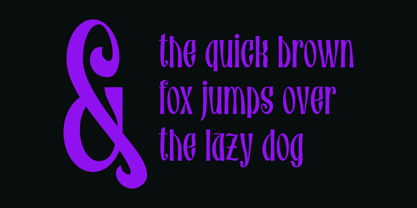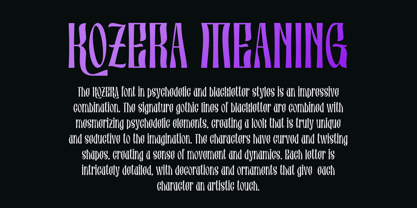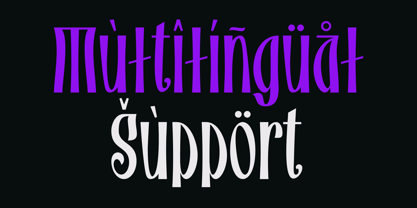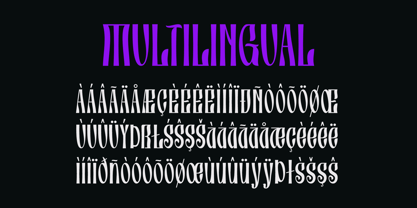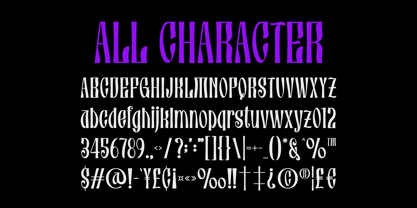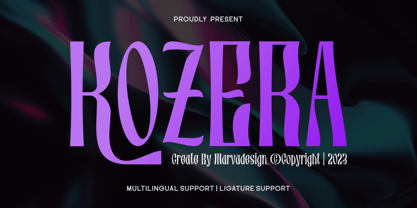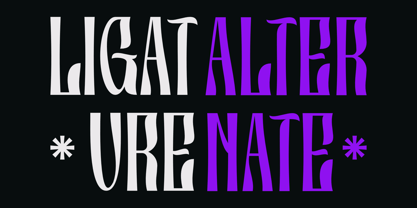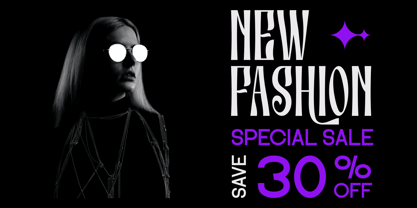
Kozera
by Marvadesign
The Kozera Font Family was designed by Febrie Setiawan and published by Marvadesign. Kozera contains 1 styles. More about this family
Introducing Kozera font is a distinctive typeface that masterfully blends elements of psychedelic and blackletter styles, resulting in a visually captivating and unique aesthetic. Its letterforms feature elongated, twisting shapes and intricate curves, evoking a sense of movement and artistic fluidity. The gothic-inspired strokes, commonly found in traditional blackletter fonts, are seamlessly fused with contemporary psychedelic influences, making Kozera both nostalgic and modern. Each character is adorned with subtle ornamental details, enhancing its decorative appeal while maintaining readability. This typeface is well-suited for branding, editorial design, posters, and other creative applications that require a bold, expressive, and unconventional look. Kozera embodies artistic sophistication, making it a compelling choice for designers seeking to make a strong visual statement.
Designers: Febrie Setiawan
Foundry: Marvadesign